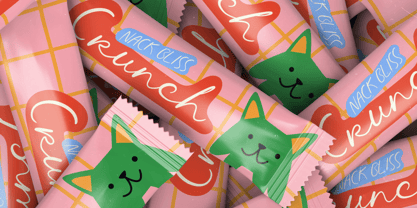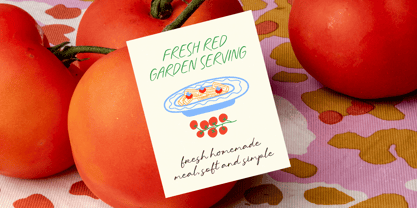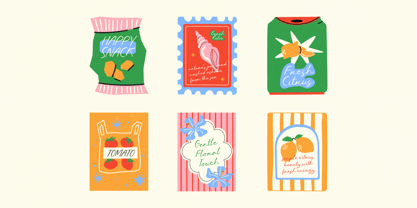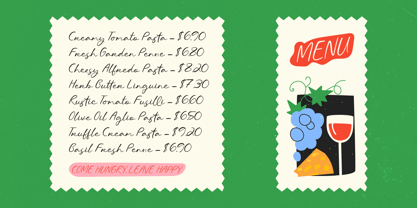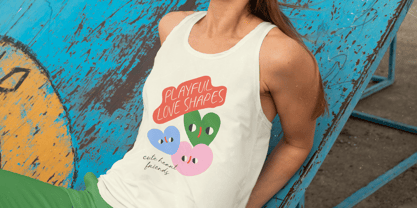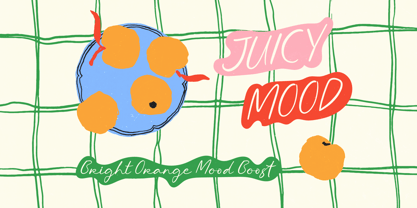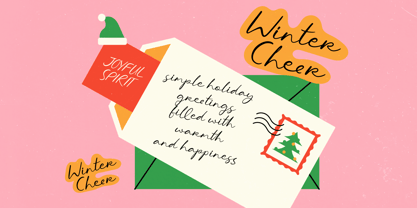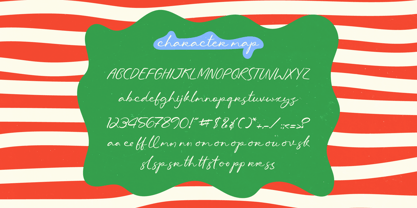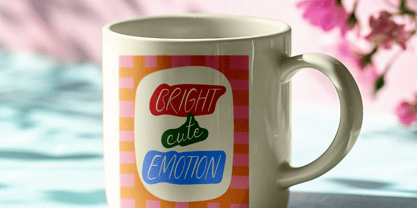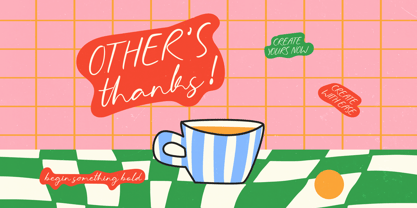
Other Thanks
The Other Thanks Font Family was designed by Heru Utama Putra and published by Stylishtype Studio. Other Thanks contains 2 styles and family package options. More about this family
Elevate your creative vision with a touch of authentic warmth and effortless style. Other Thanks - Cute Handwritten captures a playful aesthetic that feels both modern and nostalgic, characterized by its organic, hand-drawn strokes. This font is meticulously designed to bring a sense of personal connection and artistic charm to any layout, making it a standout choice for designers looking to inject personality and a handcrafted feel into their professional work.